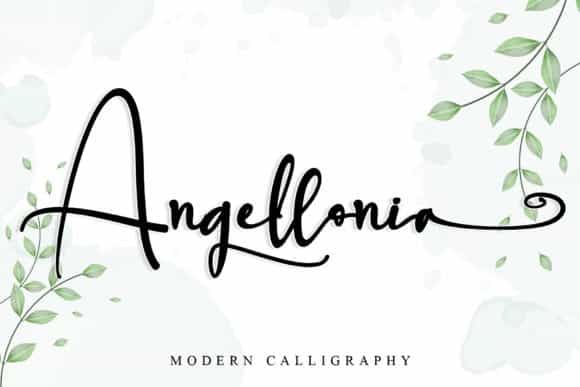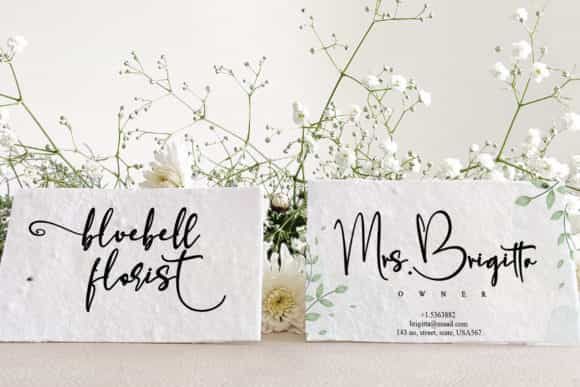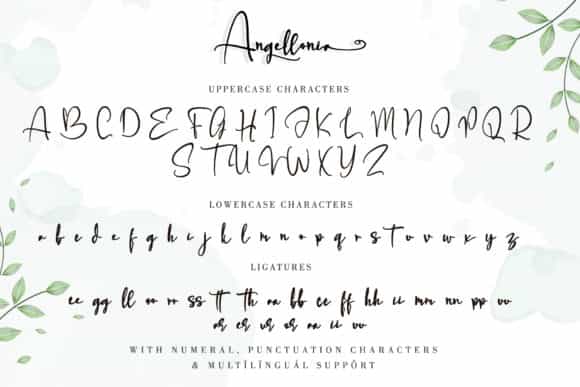
Angellonia Font is a cute, sweet modern calligraphy script font. Angellonia , with its sweet personality charmingly displayed, allows you to transform writing into something exciting and beautiful.